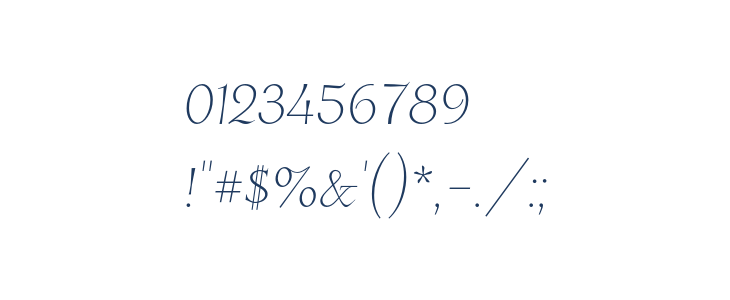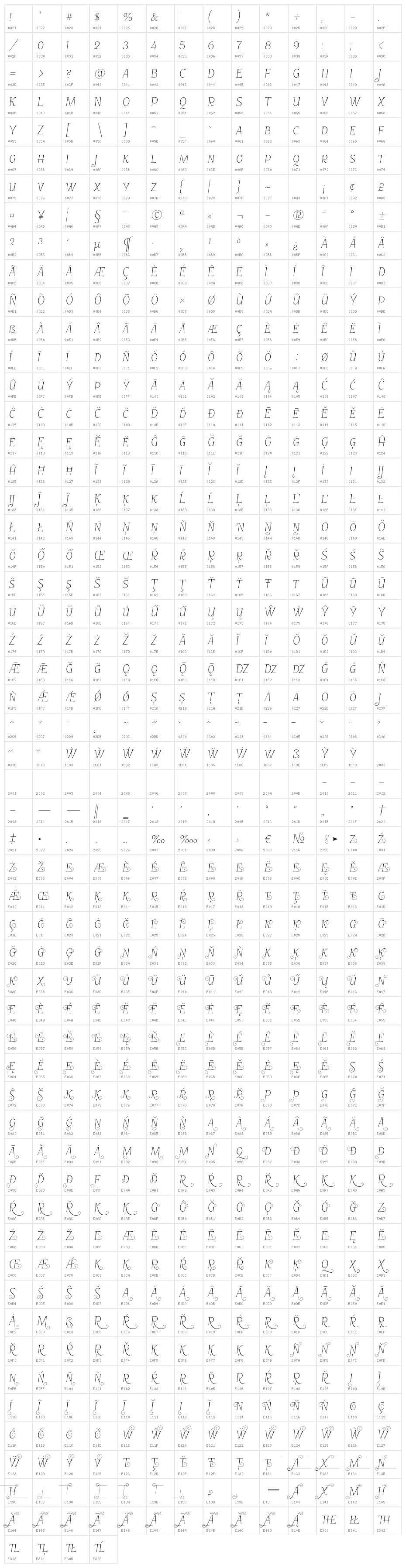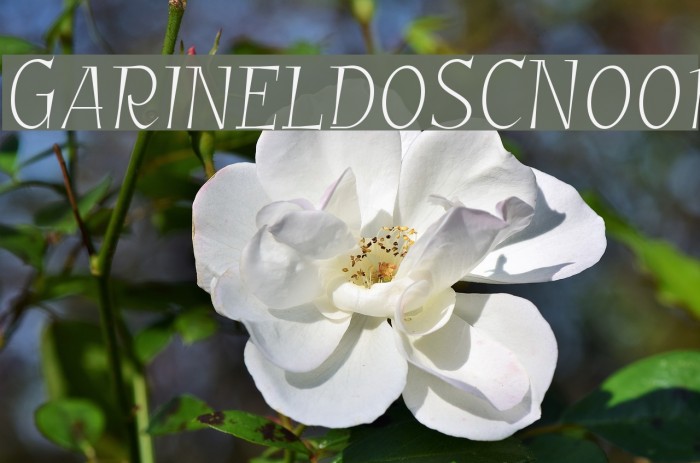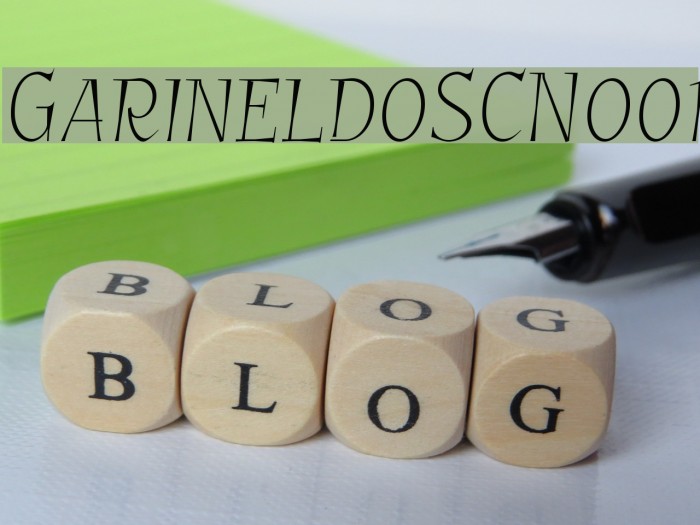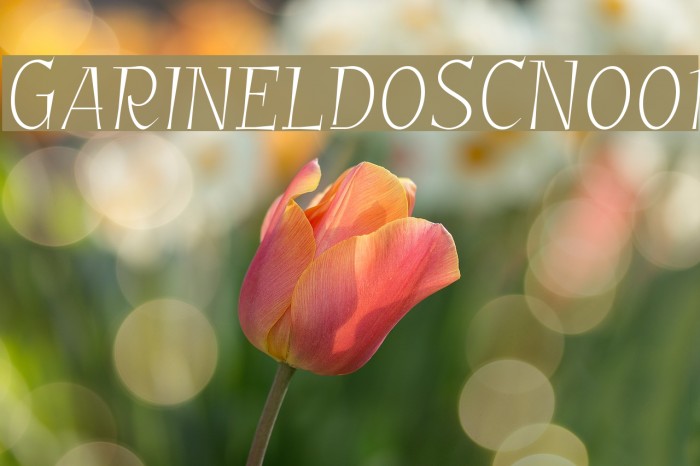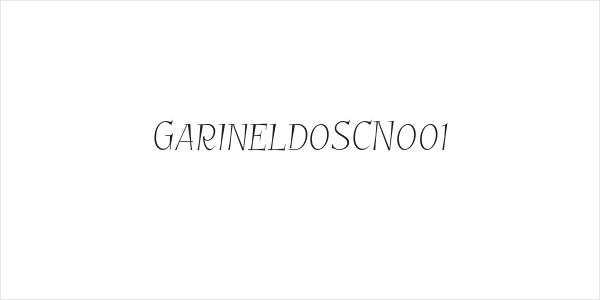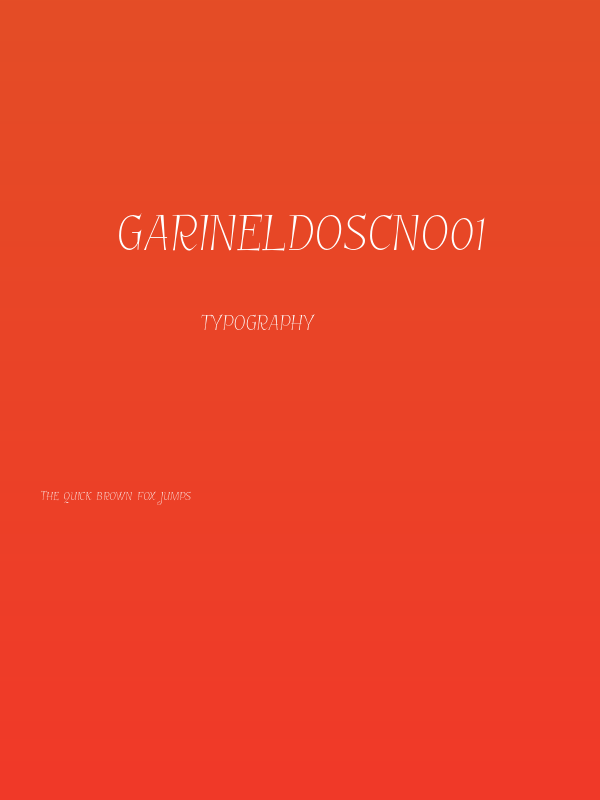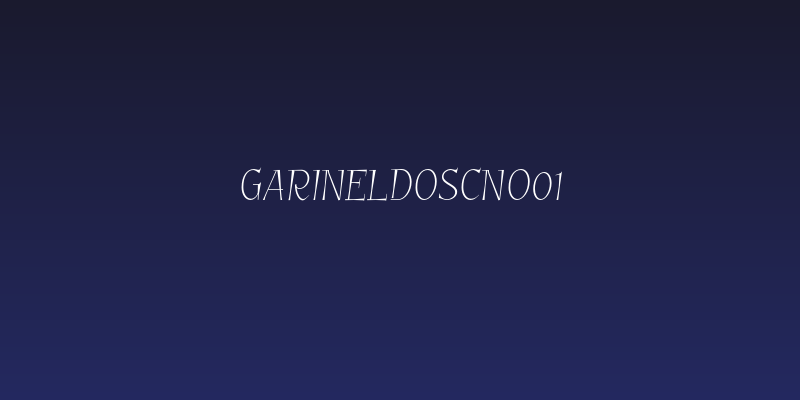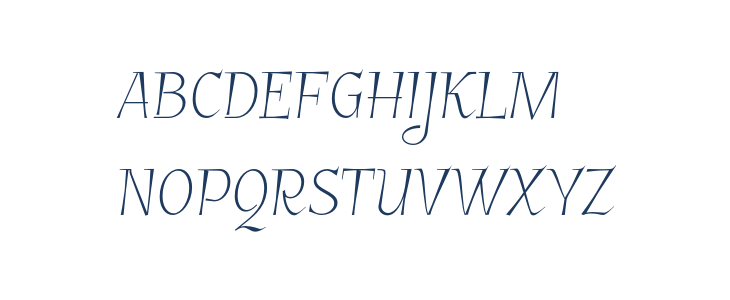
GarineldoSCNo01 Font
GarineldoSCNo01 Description
This elegant font features a sophisticated and flowing design, characterized by its thin, graceful strokes and slight slant. The uppercase letters exhibit a refined style with subtle curves, while the lowercase letters maintain a consistent and harmonious appearance. The numerals are designed with a similar elegance, ensuring uniformity across all characters. Special characters are crafted with the same attention to detail, enhancing the font's overall aesthetic. This typeface is ideal for projects that require a touch of class and sophistication.
| Use Case | Logos, Invitations, Editorial Design |
| Proposed Projects | Ideal for wedding invitations, luxury branding, elegant signage, and high-end editorial design. |